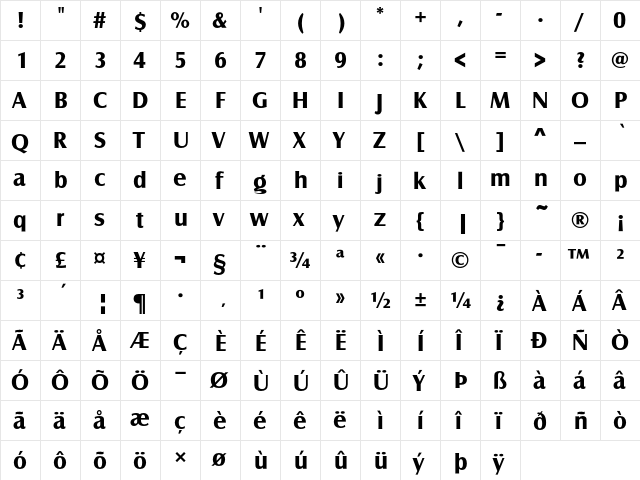
Castle T Bold Font Preview
Castle T Bold
Castle T Bold Font Details
Design Context for Castle T Typeface
Castle T takes a measured approach to typography — its balanced proportions and neutral character make it a reliable workhorse for both digital and print work. Its bold stroke weight gives it real presence on the page.